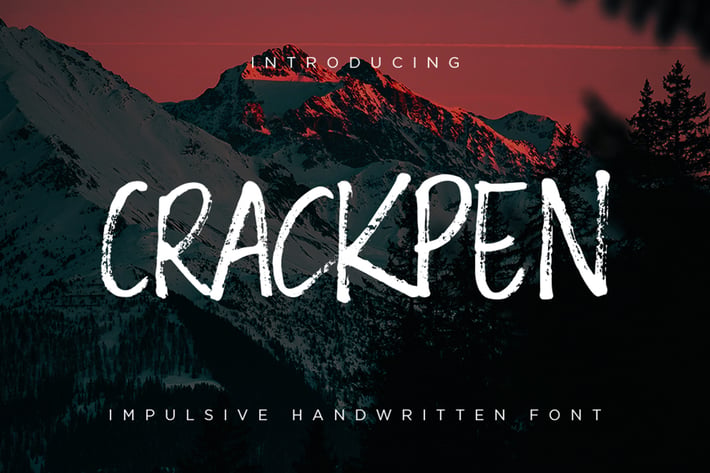
Crackpen - Impulsive Handwritten Fonts
Crackpen is an easy impulsive handwriting font using the nearest marker from the paper. Stroked by hand and executed very carefully to maintain the texture and authenticity of the human movement. Perfectly fit for the logo, branding, poster, movie, social media content, sporty theme, etc.